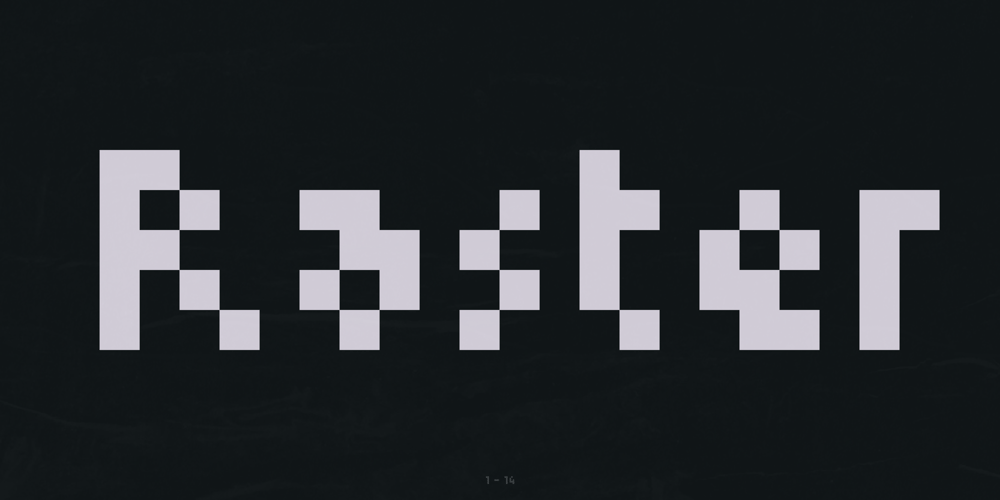
ND Raster Font Family was designed by Wolf Boese and published by NeueDeutsche. ND Raster contains 1 styles and family package options. Transport yourself back to the year 1994, a time when MS DOS games ignited the imagination of an impressionable young boy. Enchanted by the pixelated wonders of that era, he embarks on a journey that will shape his creative destiny. As the boy loses himself in the captivating landscapes of Commander Keen, the strategic depths of Warcraft: Orcs & Humans, and the mysterious quests of The Secret of Monkey Island, a seed is planted in his mind. The beauty of these games’ typography, crafted pixel by pixel, captivates his young heart and fuels a passion for design.